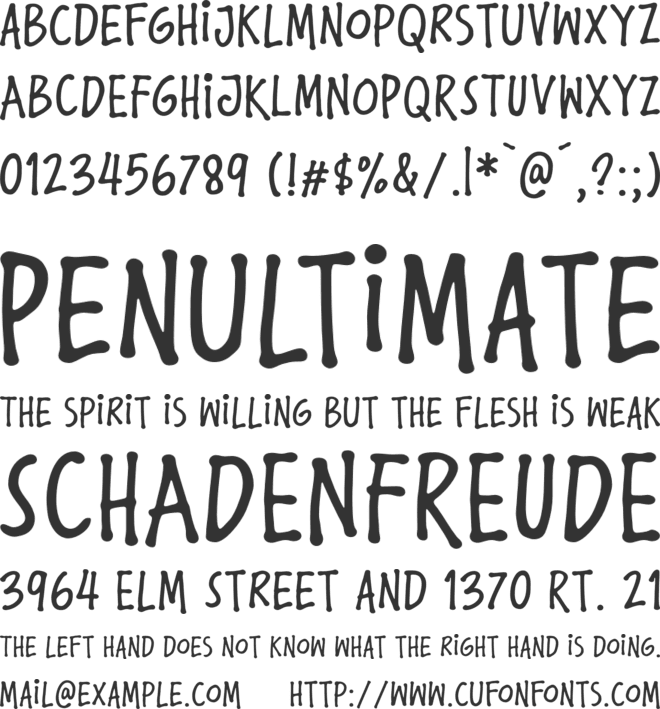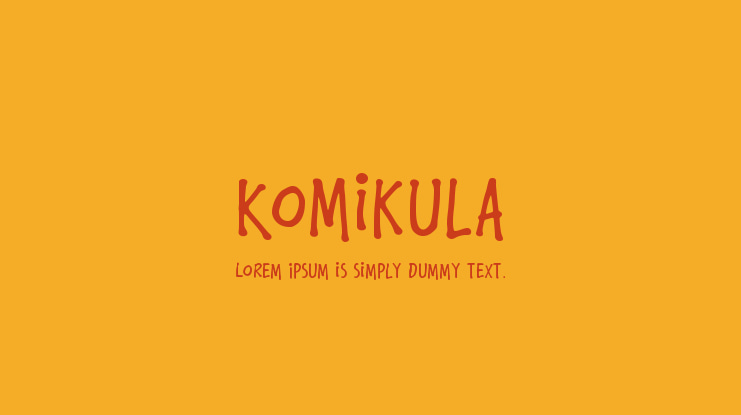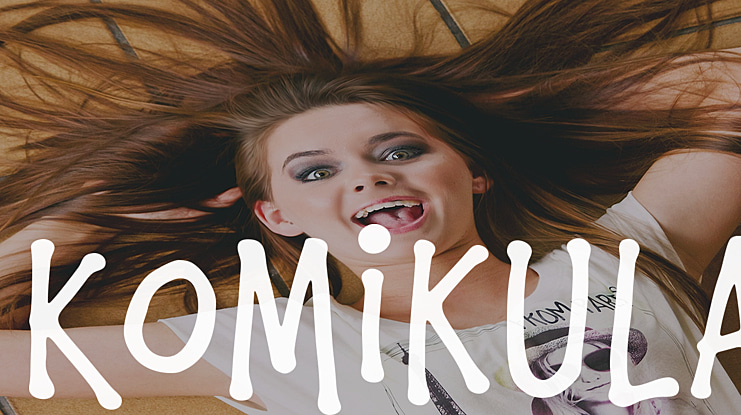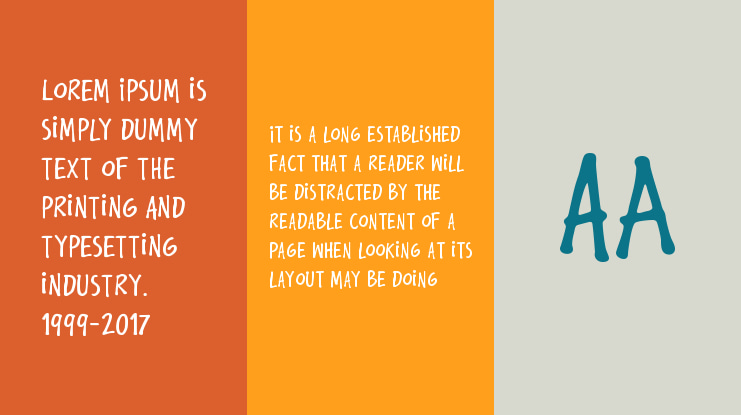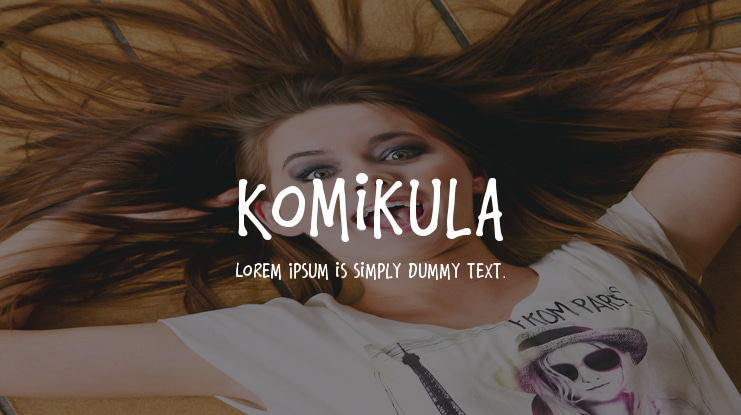
Komikula Font Family
Komikula is a handwritten font that dedicated to comic artist, cartoonists and graphic designers. This font is made from original handwriting using markers.